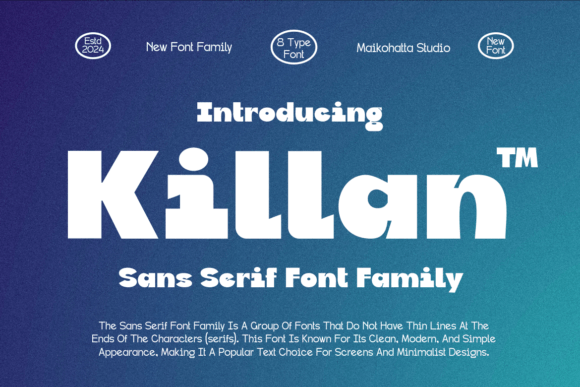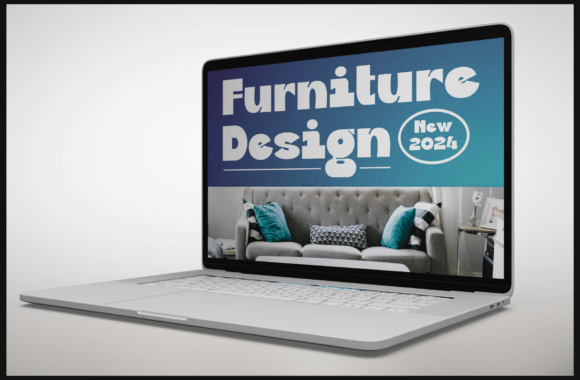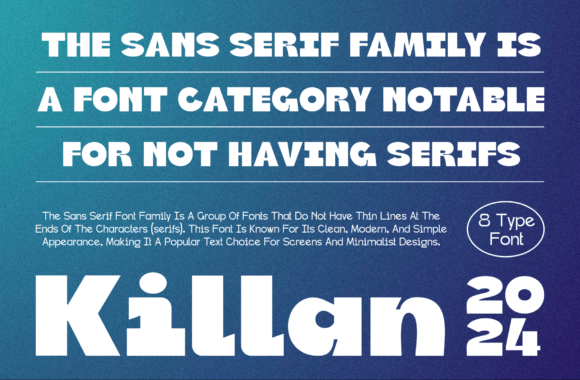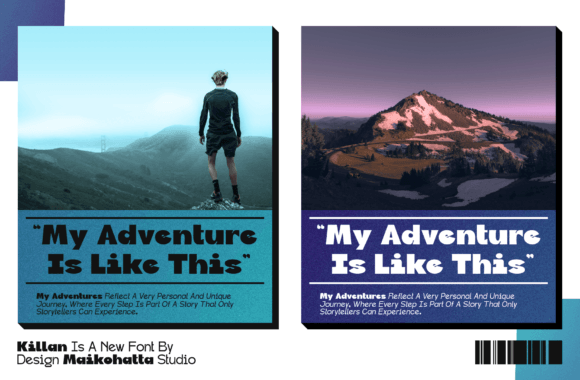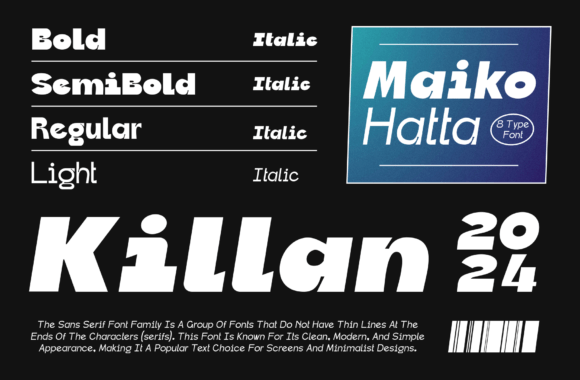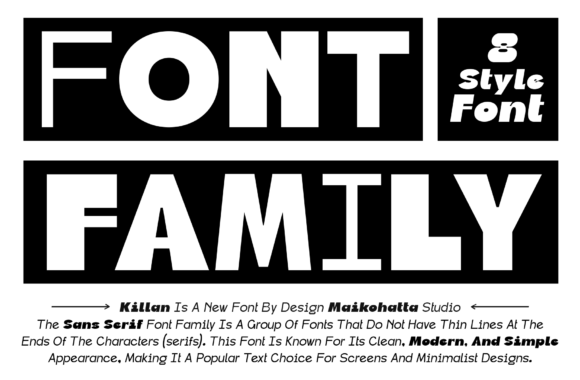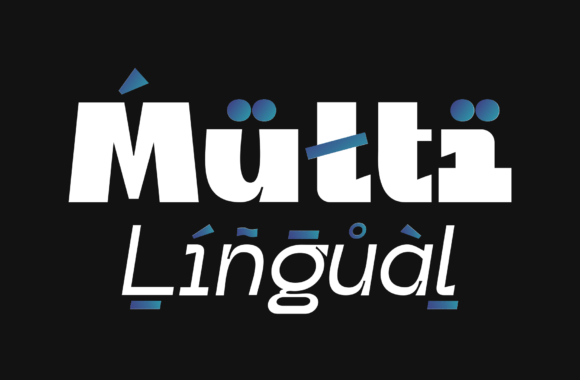
Introducing the Future of Typography: Killan Font
Do you remember that moment when you stared at a blank canvas, trying to bring your creative vision to life? The blank page stares back, and suddenly, the task seems daunting. But then, the perfect font strikes, and everything falls into place. This is where the Killan Font family comes in – a versatile and modern sans-serif font that gives you the freedom to express yourself without limits.
The Killan Font family is designed to help you create stunning, clean, and easy-to-read text displays that will elevate your graphic design projects. With various styles to choose from, you can customize the appearance of your text to suit your project’s unique needs. Whether you’re working on a branding project, a digital product, or a marketing campaign, the Killan Font family is your perfect companion.
Key Features of “Killan Font”
- Font Family: A sans-serif font family with a modern and minimalist design.
- Unique Characteristics: Features a unique blend of geometric and rounded shapes, creating a friendly and approachable feel.
Designer Review: Killan Font
Overall, I’m a bit torn on this font. On one hand, I think it has some great qualities, but on the other, there are some issues that make it not quite shine.
- Unique aesthetic: Killan Font has a distinct, hand-drawn feel that’s perfect for creative projects or brand identities that want to stand out.
- Good legibility: Despite its quirky appearance, the font is actually quite readable, even at smaller sizes.
- Customization options: The font comes with a range of weights and styles, allowing you to fine-tune the look to suit your needs.
- Limited language support: Unfortunately, Killan Font doesn’t come with comprehensive language support, which can be a problem for projects that require multilingual text.
- Not ideal for body text: While the font is great for headlines or titles, it’s not the best choice for large blocks of body text, where readability is crucial.
- May require adjustments: Depending on the specific project, you may need to adjust the font size, line height, or spacing to get the best results.
Overall, I think Killan Font is a great choice for certain types of projects, but it’s not a one-size-fits-all solution. With some careful consideration and adjustment, it can be a valuable addition to your design toolkit.
Practical Application Guide for Killan Font
Killan Font is ideal for creative and artistic projects, such as:
– Designing posters and flyers
– Creating social media graphics
– Writing children’s books and educational materials
– Designing logos and branding materials
Tips for Getting the Most Out of Killan Font
To get the most out of Killan Font, try:
– Experimenting with different font sizes and styles
– Combining Killan Font with other fonts for a unique look
– Using the font in creative and artistic ways, such as with bold and italic styles
Alternatives to Killan Font
Great Vibes is a beautiful, elegant script font that’s perfect for creating a luxurious and sophisticated look. It’s ideal for use in branding, logos, and packaging design. Compared to Killan Font, Great Vibes has a more refined and polished feel, making it suitable for high-end designs.
Alex Brush is a handwritten font that’s perfect for creating a personal and intimate feel. It’s ideal for use in wedding invitations, greeting cards, and other design elements where a touch of warmth is needed. Compared to Killan Font, Alex Brush has a more organic and hand-written feel, making it suitable for designs that require a personal touch.